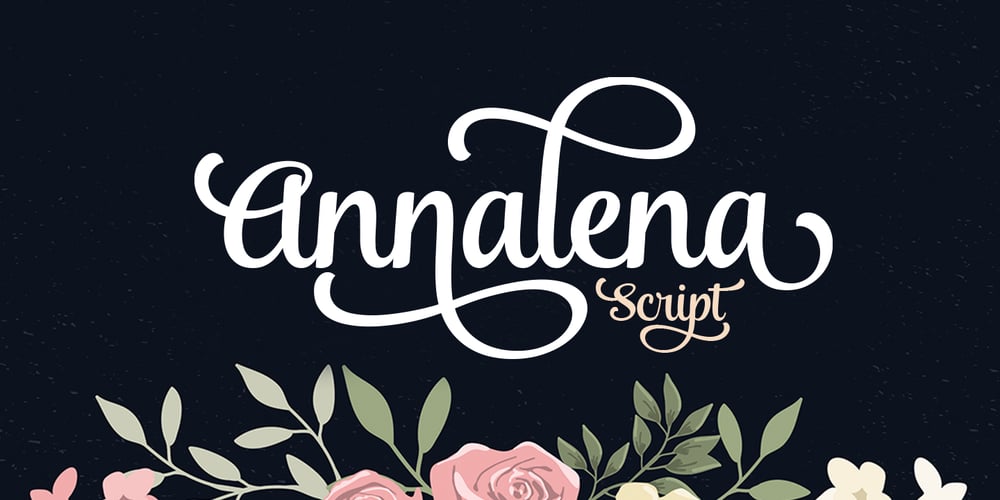
Annalena Script Font Family was designed by Seniors Studio and published by Seniors Studio. Annalena Script contains 1 styles and family package options. Annalena Script is a romantic typefaces. bold, elegant & fun vintage script font. Can be used for various purposes.such as logos, wedding invitation, t-shirt, letterhead, signage, news, posters, badges etc. Features 423+ glyphs and 160 alternate characters, ligatures, swash and multiple language support.To enable the OpenType Stylistic alternates, you need a program that supports OpenType features such as Adobe Illustrator CS, Adobe Indesign & CorelDraw X6-X7. There are additional ways to access alternates/swashes, using Character Map (Windows), Nexus Font (Windows), Font Book (Mac) or a software program such as PopChar (for Windows and Mac).